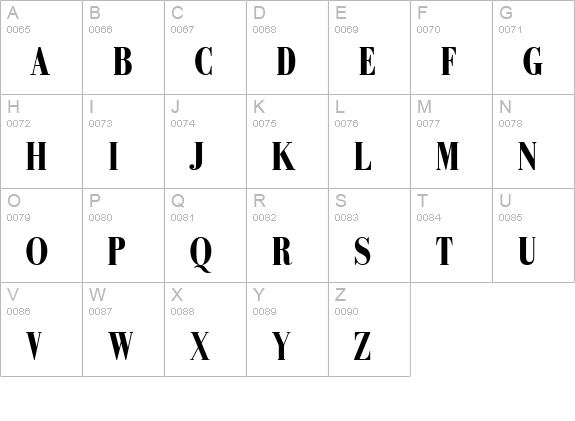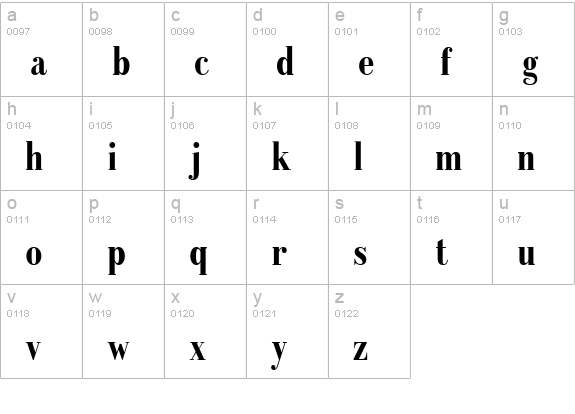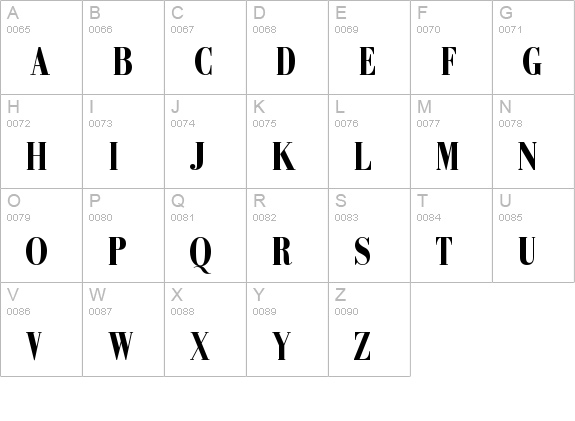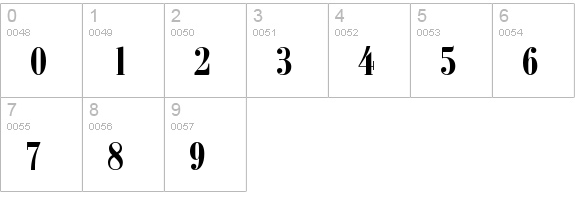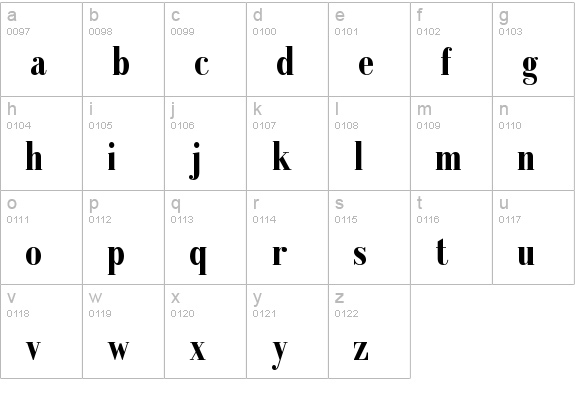
Recital SSi Bold is a strong, high-contrast variant in the Recital typeface family \xE2\x80\x94 well suited to headlines, attention-grabbing titles, and strong calls-to-action.
Recital SSi Bold font is a stunning display typeface that exudes elegance and sophistication. Its bold weight adds a touch of drama and makes a bold statement wherever it is used. This font is perfect for creating eye-catching headlines, titles, and logos that demand attention. With its clean lines and sleek curves, Recital SSi Bold font effortlessly combines classic and modern design elements. Each letter is meticulously crafted to ensure legibility and readability, even at smaller sizes. This makes it a versatile choice for both print and digital projects. One of the best things about Recital SSi Bold font is that it is available for free download at FontsMarket.com. This means that you can easily access and use this exceptional font in your design projects without any hassle. Whether you are a professional designer or a hobbyist, having access to high-quality fonts like Recital SSi Bold font can greatly enhance your creative endeavors. So, why wait? Take advantage of this opportunity and download Recital SSi Bold font today at FontsMarket.com. Let its bold and captivating presence elevate your designs to new heights. Whether you are working on a branding project, a magazine layout, or a website design, this font will surely make a lasting impression. Don't miss out on this amazing free font and add it to your font collection now.